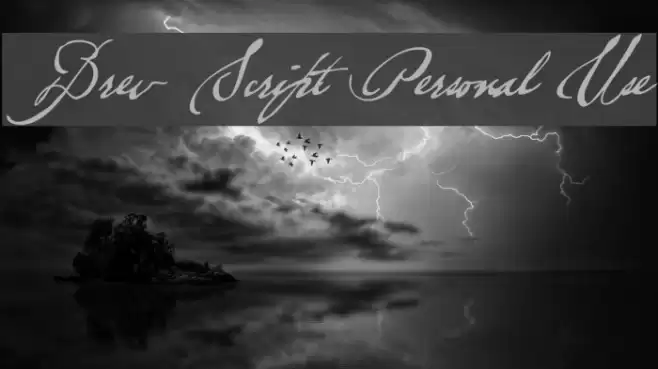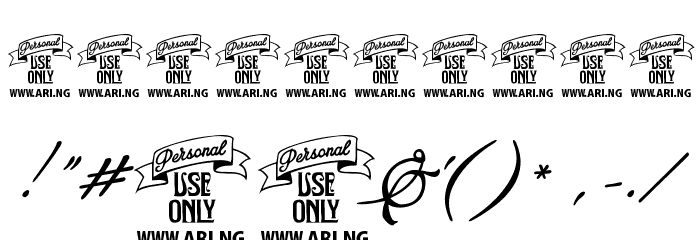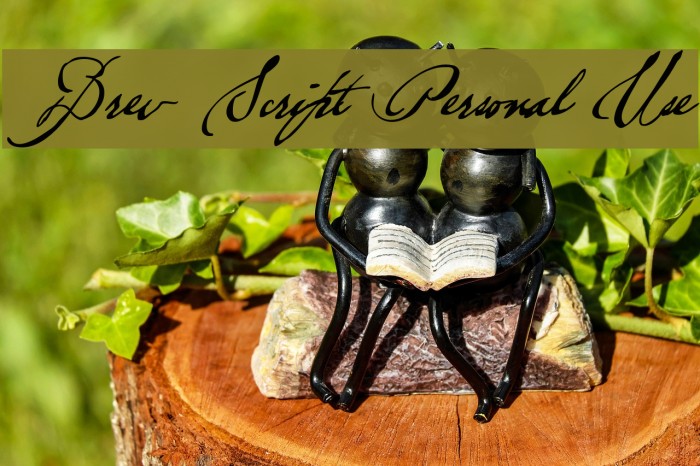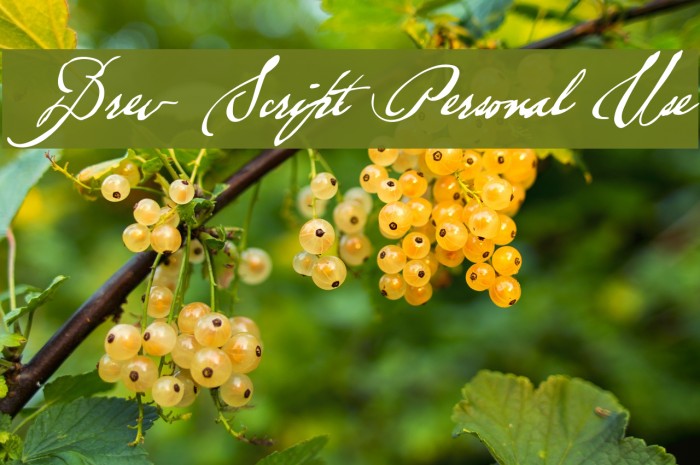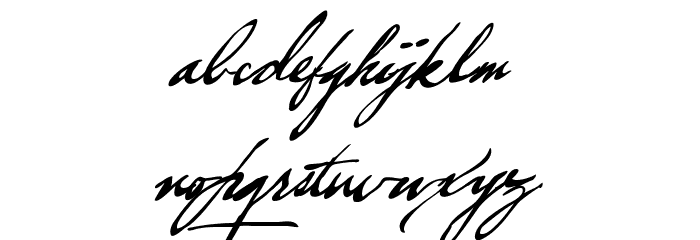
Brev Script Personal Use Font
Brev Script Personal Use Description
This elegant script font features flowing, cursive letters with a sophisticated and artistic flair. The uppercase letters are ornate and intricate, with sweeping loops and flourishes that give a sense of movement and grace. The lowercase letters maintain a consistent style, with smooth, connected strokes that enhance readability while retaining a decorative touch. The numbers and special characters are designed to complement the overall aesthetic, ensuring a cohesive look across all text elements. This font is ideal for projects that require a touch of elegance and refinement.
An elegant, flowing script font with ornate, cursive letters and decorative flourishes from Uncategorized fonts.
- Proposed Projects: Wedding invitations, elegant branding, personal stationery, artistic posters, and decorative quotes.
- Overall Style: Elegant, Decorative
- Use Case: Logos, Invitations, Decorative text